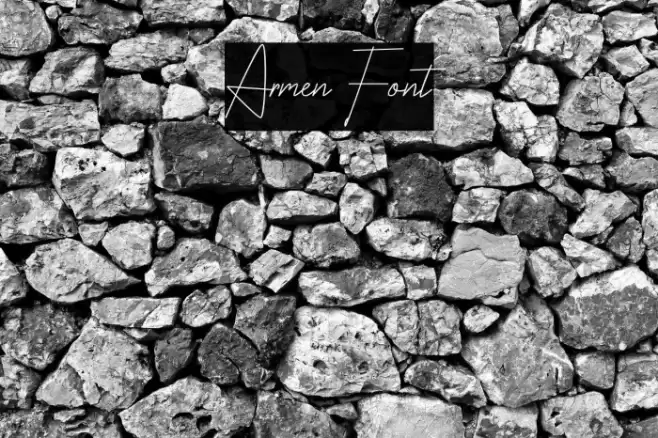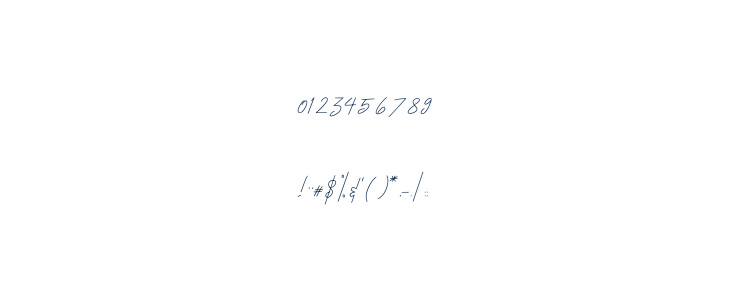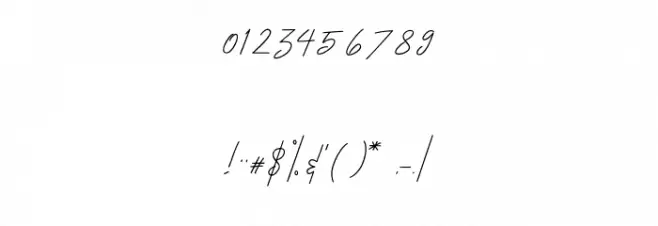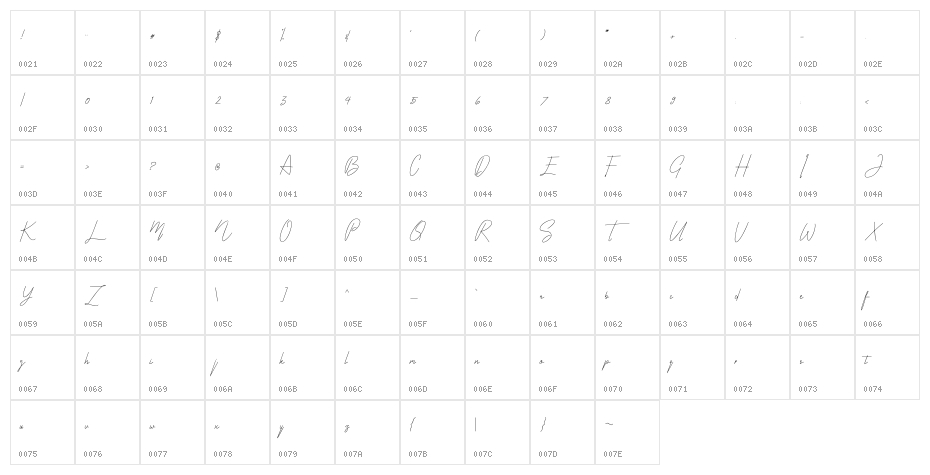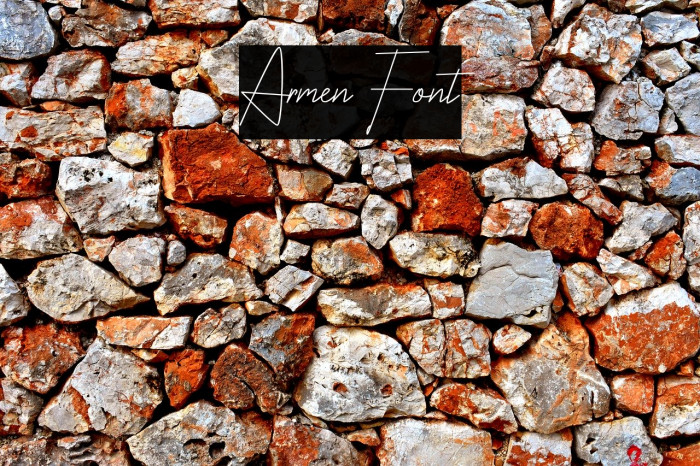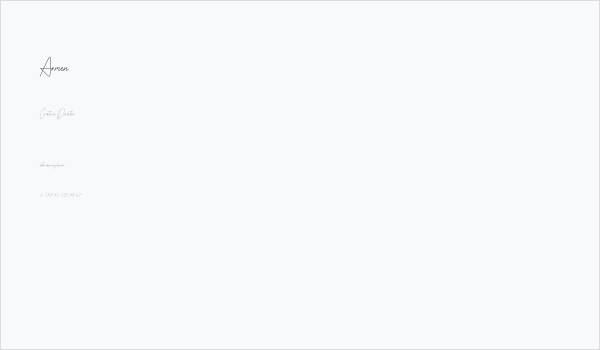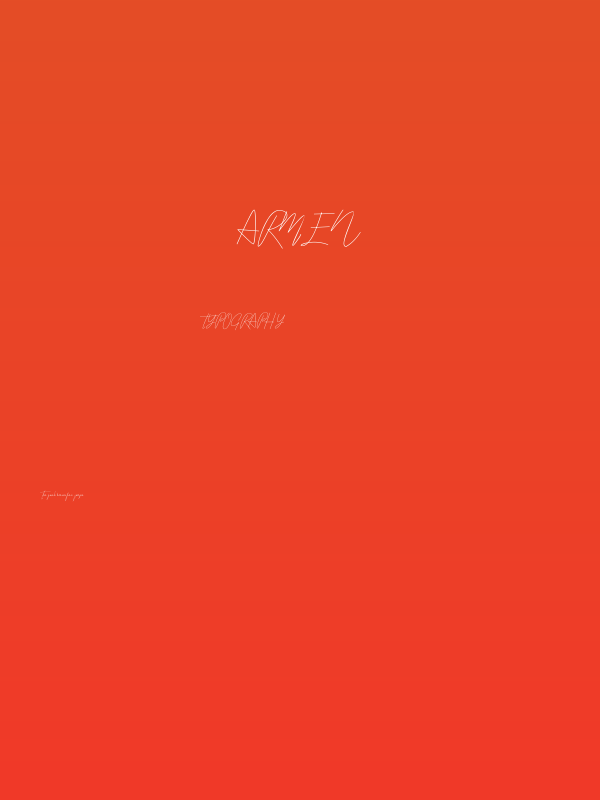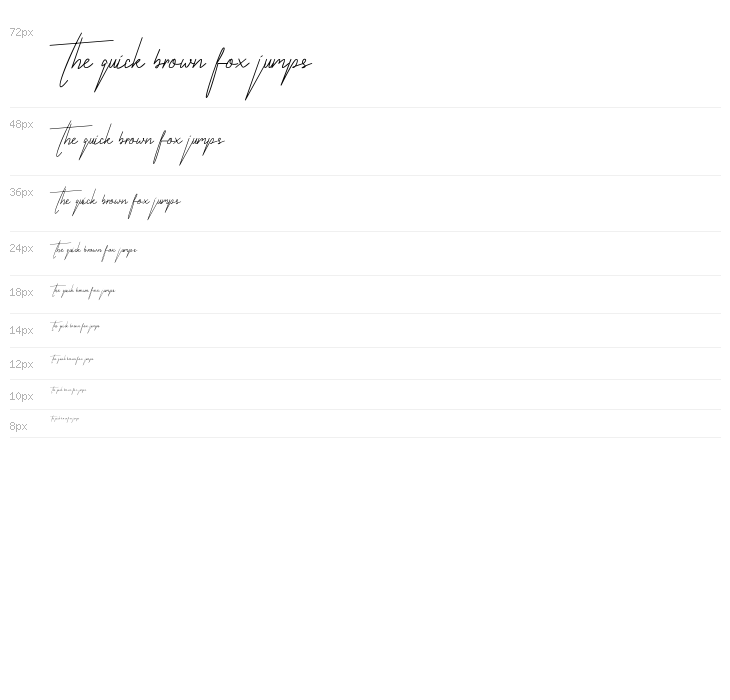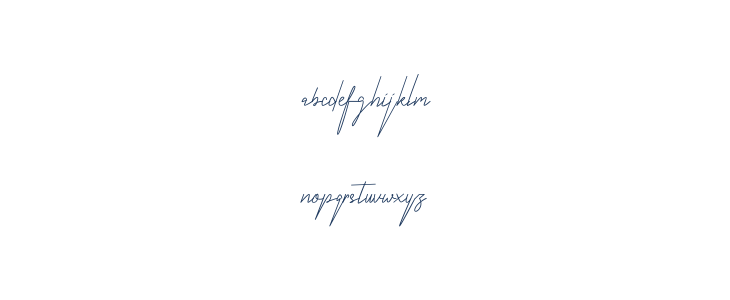
Armen Font
Armen Description
This font features a delicate and elegant script style with a handwritten appearance. The letters are connected in a fluid manner, giving it a natural and organic flow. The uppercase letters are tall and slightly slanted, while the lowercase letters maintain a consistent height with subtle variations in stroke width. The numerals are clear and legible, matching the overall style of the alphabet. Special characters are included, maintaining the same graceful aesthetic. This font is ideal for projects that require a personal touch, such as invitations, greeting cards, or branding materials.
A graceful, handwritten script font with fluid, connected letters from Uncategorized fonts.
- Proposed Projects: Ideal for wedding invitations, personal branding, greeting cards, and elegant stationery.
- Overall Style: Elegant, Handwritten
- Use Case: Headlines, Invitations, Personal Branding